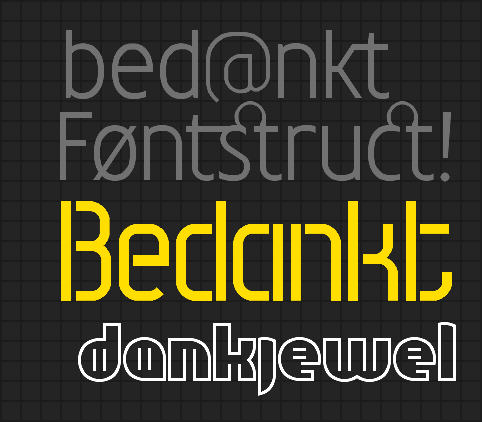
This is a attempt at starting another collaborative FontStruct community project to thank for a decade of FontStruct's web application and pay homage to its creator, Rob Meek.
The first initiative for a community collab fontstruction originally came from fellow user Funk_King, and resulted in FS Collaboration 1. A second round of creative collaborations was proposed by Geneus1, which resulted in World of Thanks. Two exceptional expressions of gratitude towards each responsible for making the FontStruct web application available, featuring contributions by various community members.
Now, more than 9 years after the second round World of Thanks was published and (sadly) had last seen activity, I thought It would be a great idea to celebrate a fontastic decade under the belt of FontStruct.
Therefor I'd like to propose a third round of creative collaborations.
This is an opportunity for all users who have missed out the first two rounds, and say 'Thank You' for the awesome, worlds most accessible, freely available font creation application, that is FontStruct.
All credits for this concepts originallity should go to Funk_King, as it was his brainchild, and I most likely would've never came up with it myself.
Guidelines are fairly simple (but could possibly change at a later stage)
1.) Send a message to reserve your glyph('s) (up to 3 max.). People added to the list will be sent the info to access the collab account.
2.) Say 'Thank You' in your own words/language. (Spanish, French, Italian, etc.)
3.) Work should only be done on your own glyph(s), unless approved by the original designer!
4.) The size of the glyph('s) should roughly be between 32 and 64 bricks in height.
5.) The current person working on the font must inform the next person on the list that they are finished, so work will not be lost by working simultaneously. As well as keep the project running.
6.) Once finished, add your username, language and/or glyph description here at the bottom.
7.) If you are posting a message in the comment section from the collab account, end the message with your original username, so we know who you are.
8.) When possible, post a sample image of your contribution in action. below in the comment section.
The initial font was cloned from DJNippa's 'All Composites saved in MY BRICKS' (big thanks to this user for allowing me to use this fontstruction brick toolset).
It has been slightly modified, removing all bricks from the editor grid, preserving only the saved set within the 'My Brick' pallet. The small square shaped brick in 'My Bricks' that is used as glyph indicator also marks the end of DJNippa's brick tool set. All bricks beyond this point are most likely the result of of glyph-specific composites and should under no circumstances be modified what so ever.
It is also possible to work on your personal FontStruct account by manually cloning DJNippa's or this font, and once you finished your glyph(s) simply copy/paste it from your account into the collab account.
FORMAT:
letter-(description) word (language), by user
A-(Ligatured Sans) Bedankt Fontstruct! (Dutch), by Sed4tives, B-(Stencil Sans) Bedankt (Dutch), by Sed4tives, C-(Circular Display) dankjewel (Dutch), Sed4tives, D-(Minimalism) 謝謝 (Mandarin Chinese), by JunYou, E-(Artdeco) 謝謝 (Mandarin Chinese), by JunYou, F-(Minecraftio) !תודה (Hebrew), by BWM, G-(Rainy Days) ¡Gracias! (Spanish), by BWM, H-(DYMO LetraTag Interface) ghIlDeSten! (Klingon), by BWM, I-(description) 고맙습니다! (Standard Korean), by Bluemon, J-(description) word (language), by user
That image above is by me! I appologize not doing it as I shouldve had as the first person to open the project, lol. So please incluse your username with the sample image please. Thanks!
I designed these 3 glyphs. I got Gateway Timeout when downloading, so I took a screenshot of the glyphs…
-BWM
Sorry for the messy palette :(
I was gonna do another one but I decided to do just this one because I'm kinda tired (also please ignore how my sample is a bit, not good compared to my other samples)
-Bluemon
@Bluemon I'd say it is a decent sample mate, nothing wrong with it!
@JingYo Cool design, the second one kinda looks like a clipart of two persons behind a arcade machine :P
@BMW Cool contributions as well.. :)
Hi guys! Thanks for putting this into motion. Is this project still going on?
@ geneus1 Not very highly active at this moment, but it most certainly is still going mate!
If you want to participate let me know, and I will send you the login data to enter the collab account so that you can clone the font and make your contributions to it.
I hope that this eventually will reach more members that might be interested to join, since there is enough talented members currently not very active, but could make a wonderful contribution too.